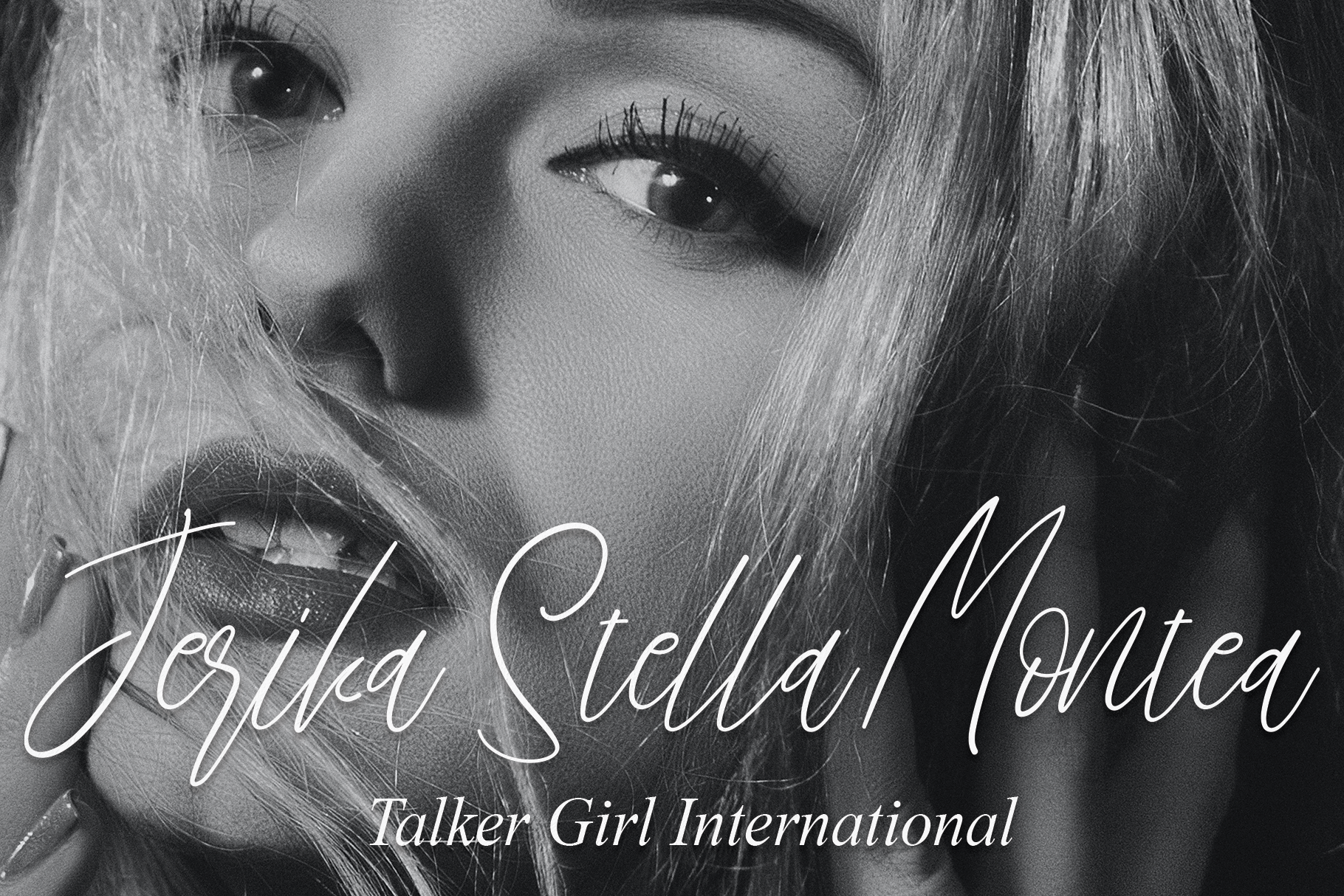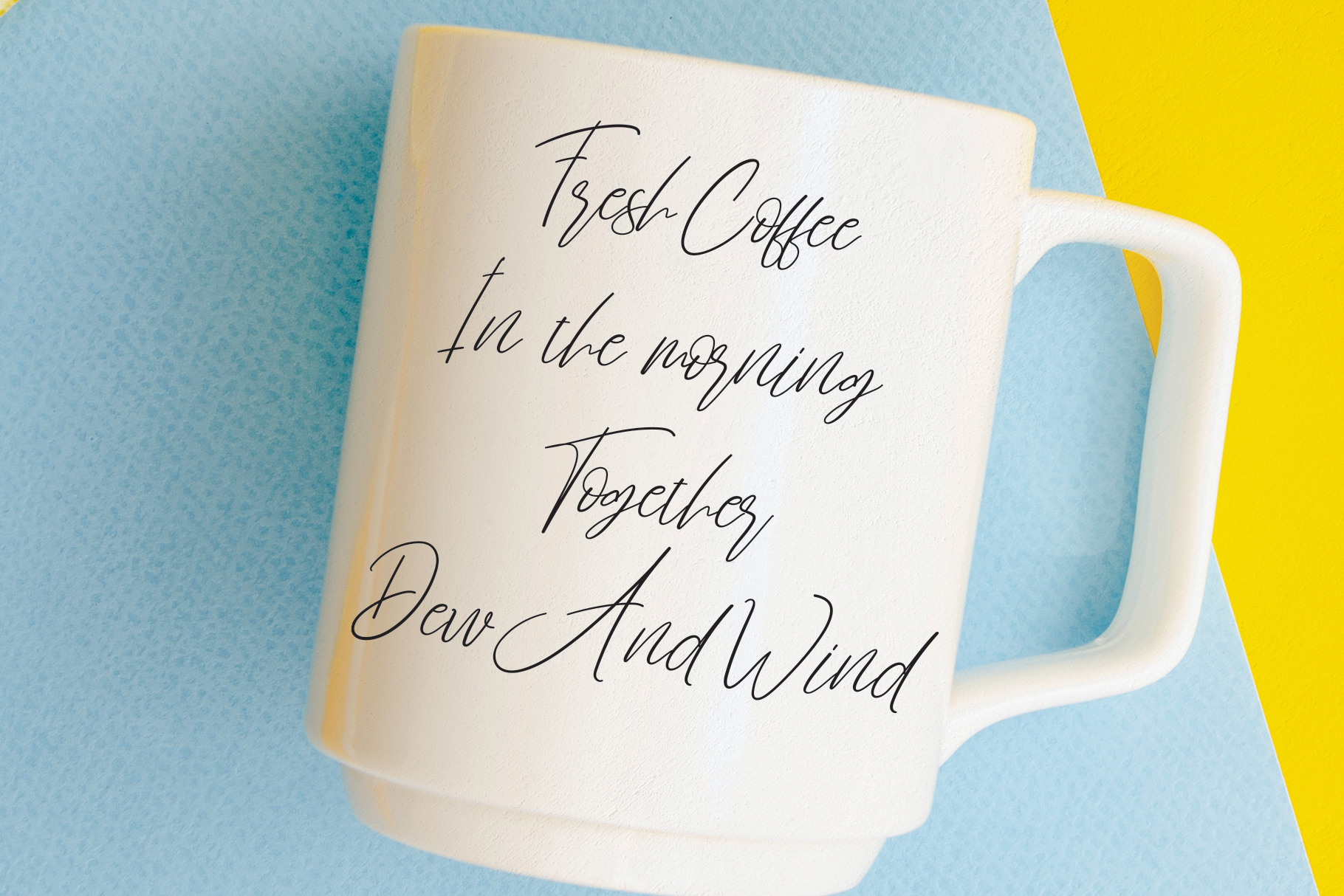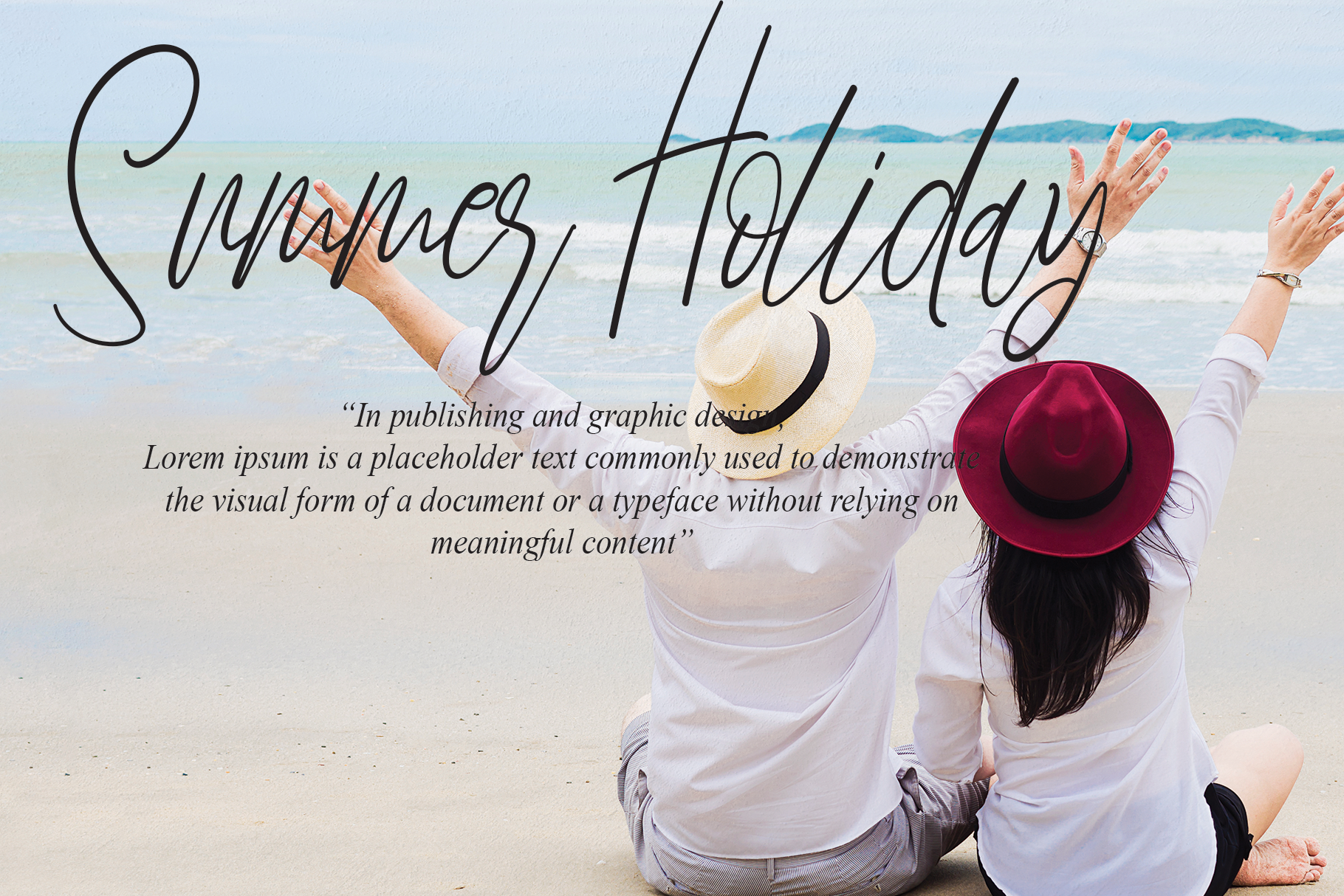
Brillian Signature Font
Brillian Signature Script Font
This is a thin lettered and stylish script font. It is perfect for any branding project such as logos, t-shirt printing, creative products, and more. It will look extraordinary in a variety of contexts.
the latest style letters are perfect for wall displays, wedding invitations, social media post logos, advertisements, product packaging, product designs, labels, photography, watermarks, invitations, stationery, and any project that requires taste handwriting.